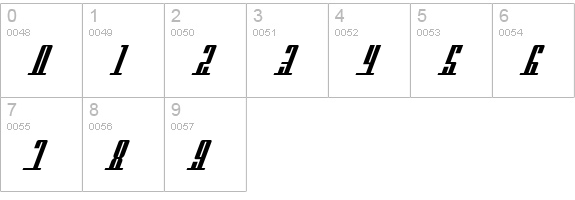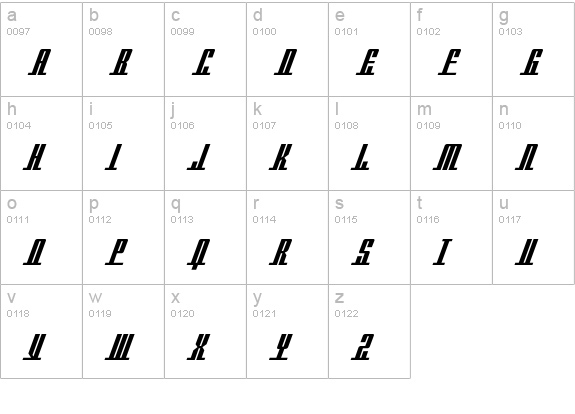
SF Americana Dreams SC Bold Font Details
SF Americana Dreams SC Bold is a strong, high-contrast variant in the SF typeface family \xE2\x80\x94 well suited to headlines, attention-grabbing titles, and strong calls-to-action.
SF Americana Dreams SC Bold font is a stunning display font that captures the essence of Americana with a modern twist. This bold and powerful typeface is perfect for adding a touch of vintage charm to any project. Its strong and distinctive letterforms evoke a sense of nostalgia and evoke memories of classic American signage and advertising. With its clean lines and attention to detail, SF Americana Dreams SC Bold font is versatile and can be used in a variety of contexts. Whether you're designing a logo, creating a poster, or crafting a headline, this font will make a bold statement and grab the attention of your audience. One of the best things about SF Americana Dreams SC Bold font is that it is freely available to download at FontsMarket.com. This means that you can easily access this amazing font and use it for your personal or commercial projects without any restrictions. Whether you're a professional designer or a hobbyist, you can enjoy the benefits of this font without breaking the bank. So, if you're looking for a font that combines the timeless charm of Americana with a contemporary edge, look no further than SF Americana Dreams SC Bold font. Download it for free at FontsMarket.com and unlock a world of creative possibilities.